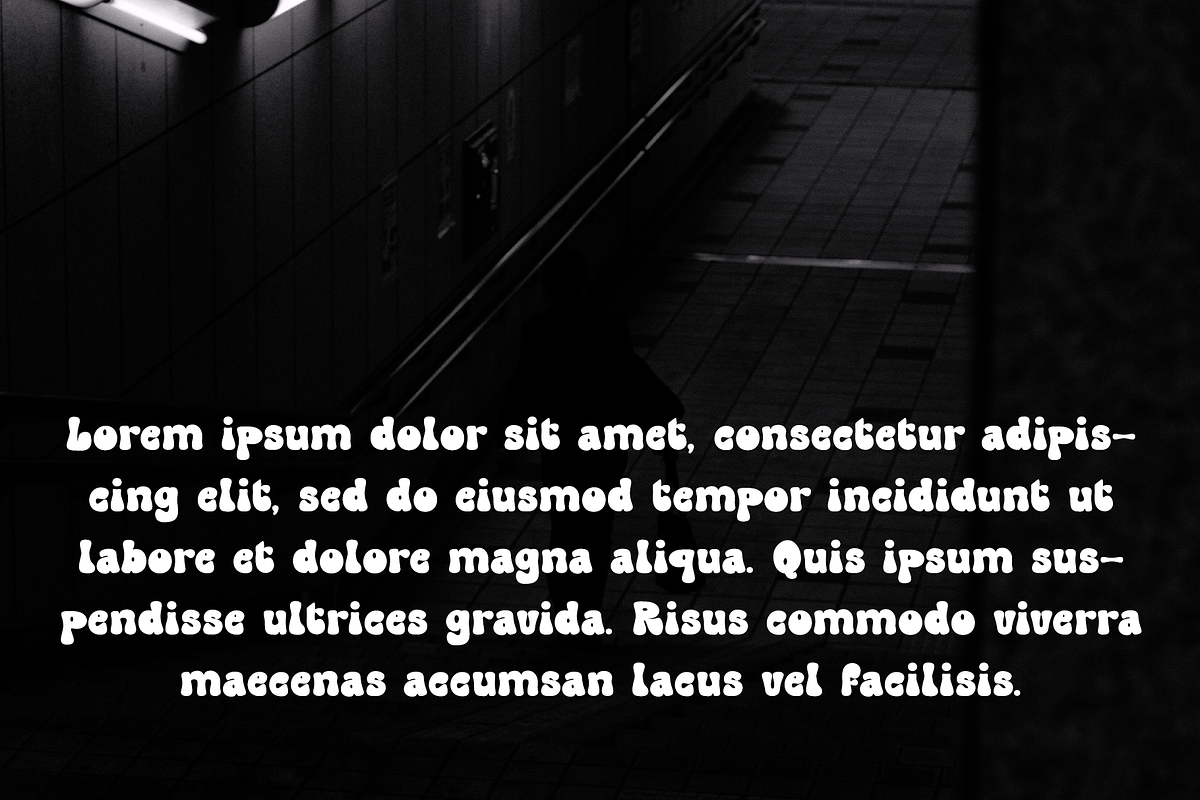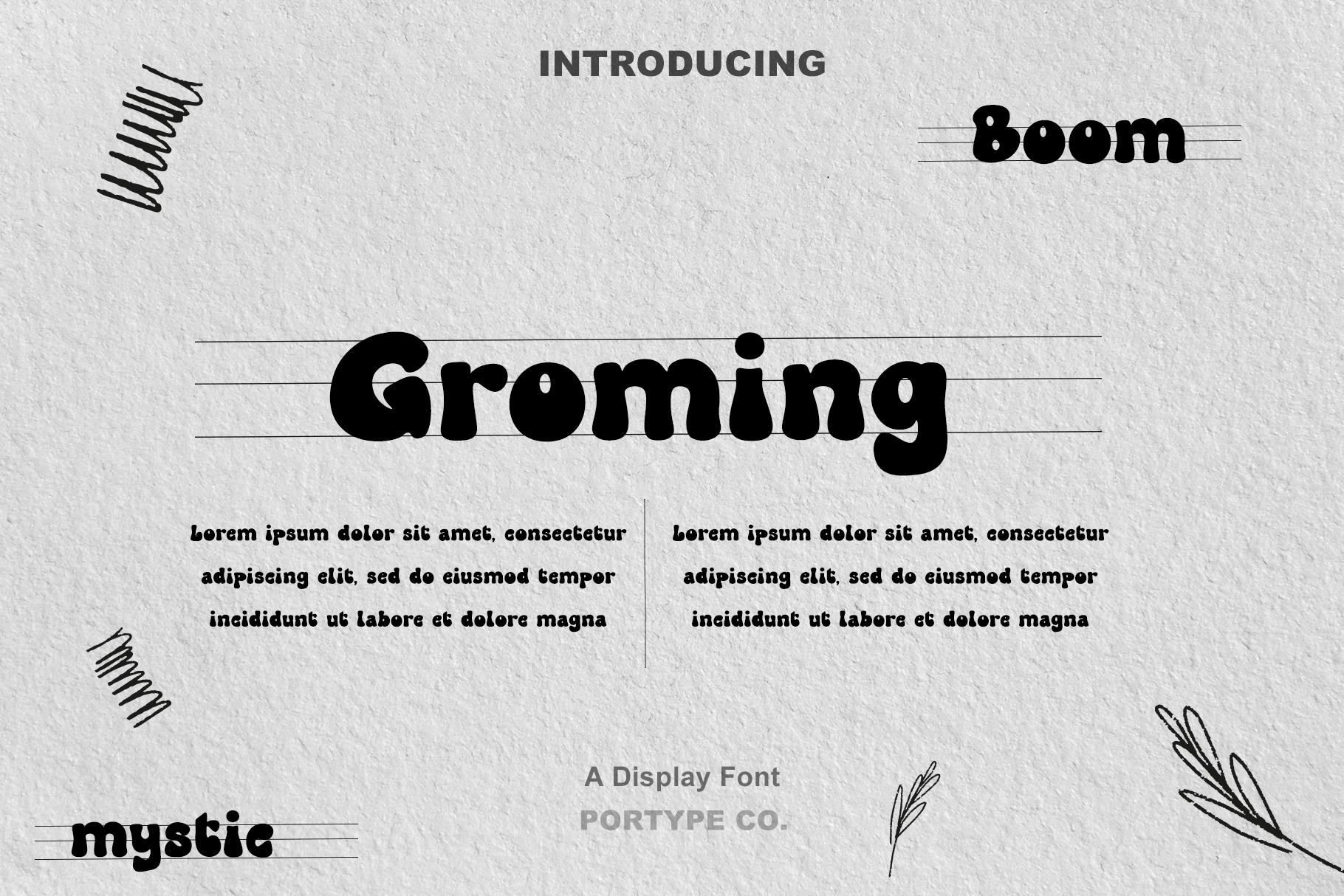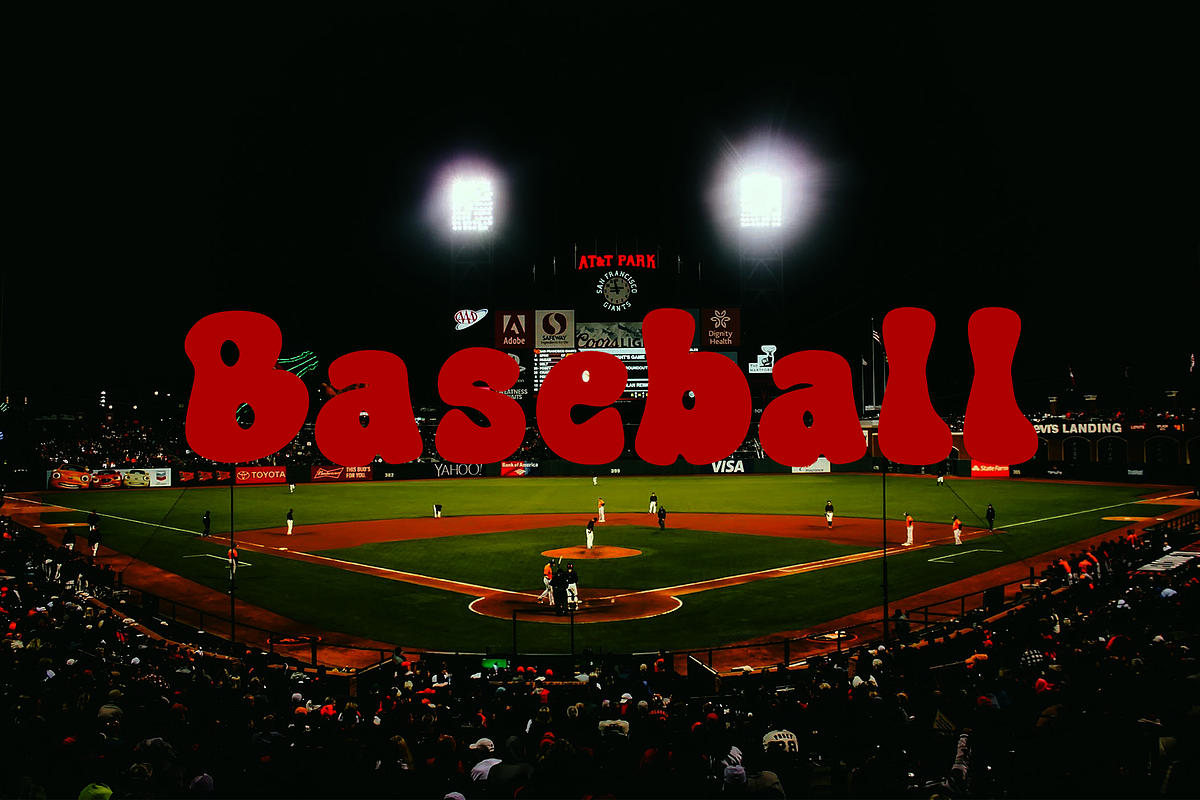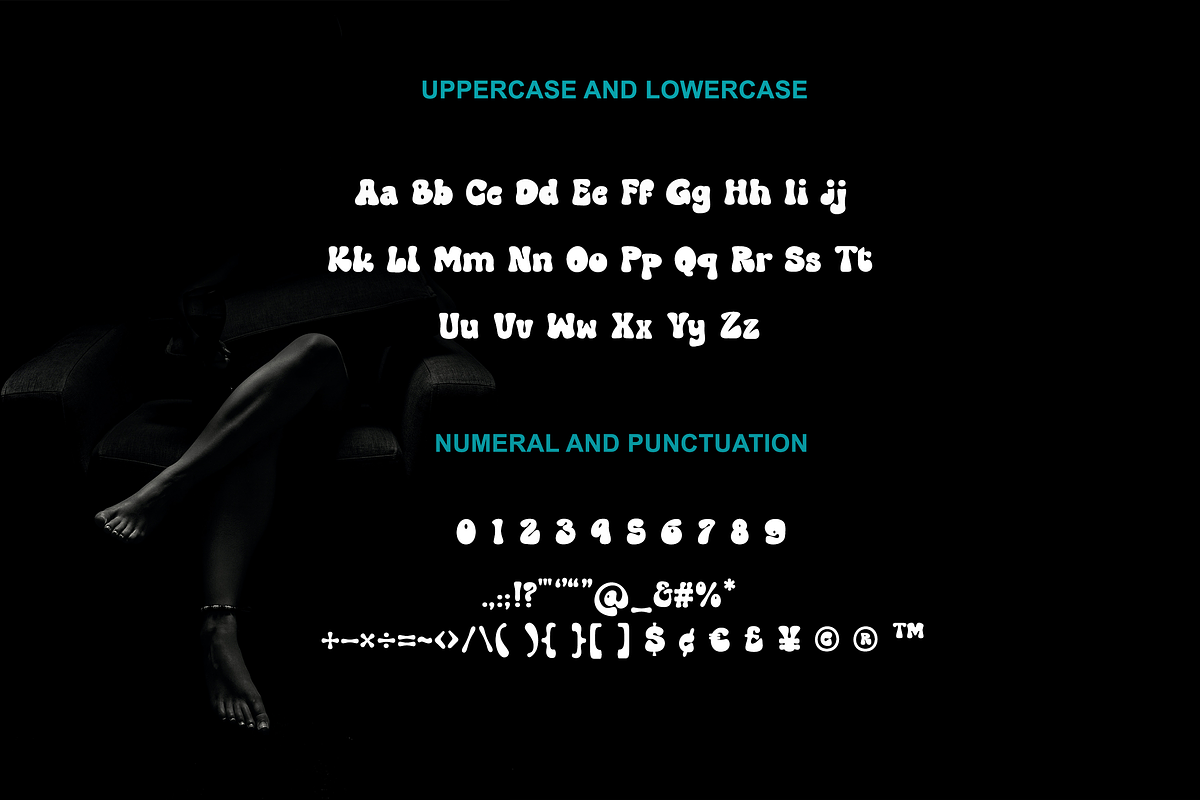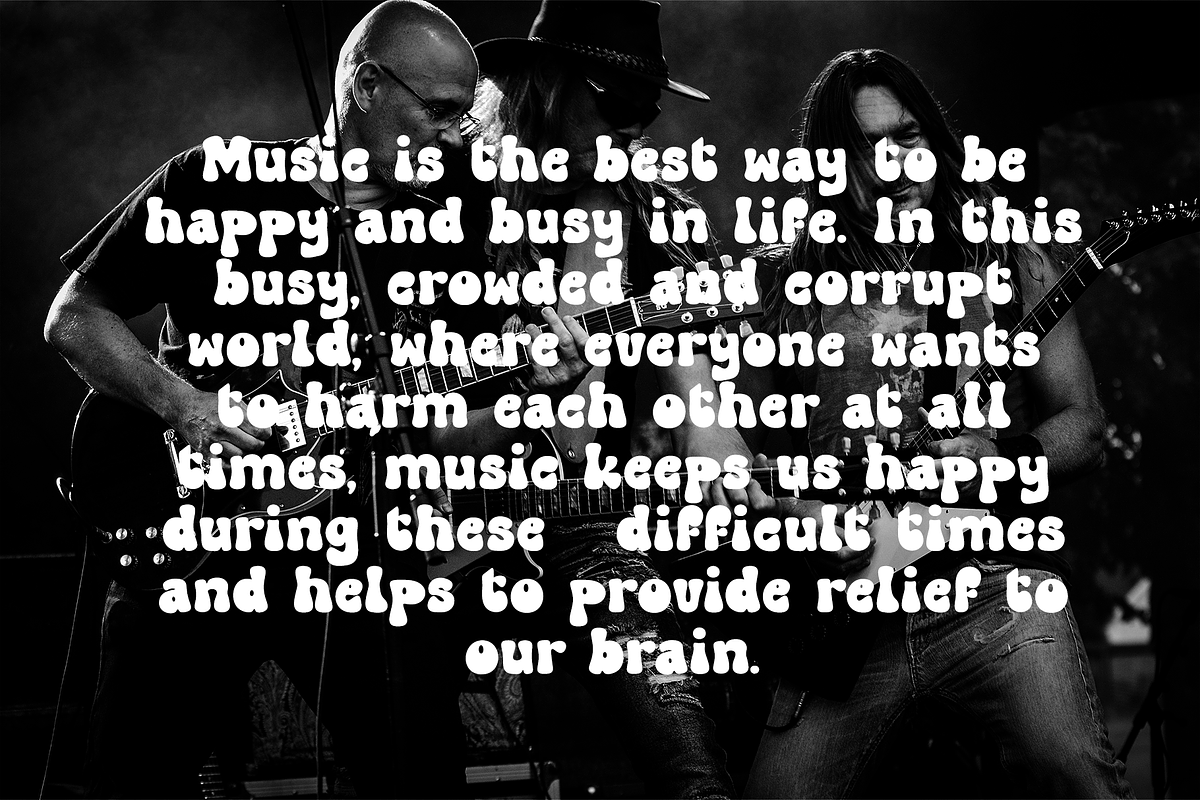
Groming Font - Luxury
Grooming is a luxurious and elegant font that exudes sophistication and refinement. Crafted with meticulous attention to detail, this typeface combines classic elements with a modern twist, making it the perfect choice for projects that demand an opulent and stylish aesthetic.
The characters in the Grooming font are beautifully designed, with graceful curves and ornate embellishments that add a touch of grandeur to every letter. The typeface features tall and slender letterforms that give it a sense of verticality, making it ideal for headlines and titles where a sense of height and grandeur is desired.
Grooming font is the epitome of luxury typography, offering a perfect blend of timeless elegance and modern sophistication. Its graceful, ornate, and well-crafted design is sure to leave a lasting impression on any project that seeks to convey a sense of opulence and refinement.